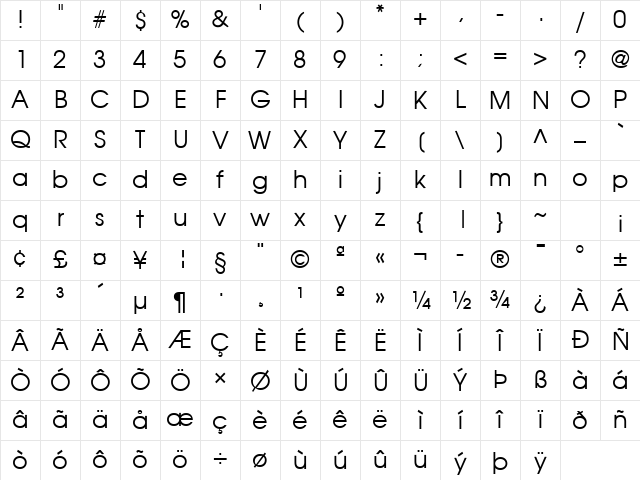
Avalon Regular
Avalon Family
Avalon Regular
Design Context for Avalon
Avalon is a composed and adaptable typeface that performs quietly and consistently across a wide range of design contexts.